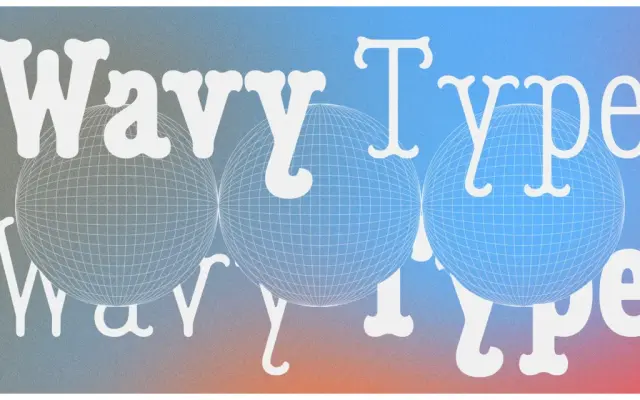
Minorca
Black Foundry · Black Foundry Designers
A narrow slab serif drawn from engraved capitals spotted along Mahon port in Minorca, with short round serifs and an optional wavy variant available via a variable font axis.
The letterforms retain the character of Mediterranean port signage, with compact proportions suited to editorial and display use alike. A Wavy variant runs parallel to each weight, offering a more expressive option for packaging, film titles and branding. The family ships as a variable font and includes small capitals, marine-themed symbols and an anchor glyph.
A slab serif with narrow proportions and short, round or wavy serifs that depart from conventional slab conventions, drawing on engraved letterforms observed on the island of Minorca.